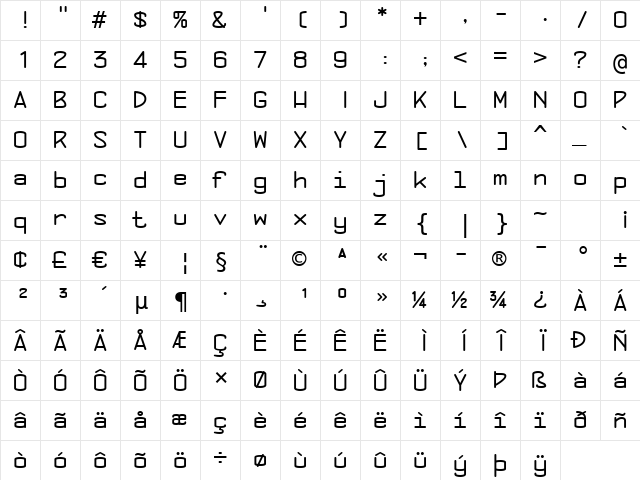
Concursico Mono BTN Regular
Design Context for Concursico Mono BTN Typeface
Concursico Mono BTN brings the precise, column-aligned rhythm of monospaced typography to designs that value technical clarity and systematic order.
Well-suited to data-driven dashboards, coding tutorials, and any design that wants to reference the world of programming.
Pro Tip: Use Concursico Mono BTN with slightly increased line-height for extended reading — fixed-width spacing can feel dense in longer passages without extra breathing room.